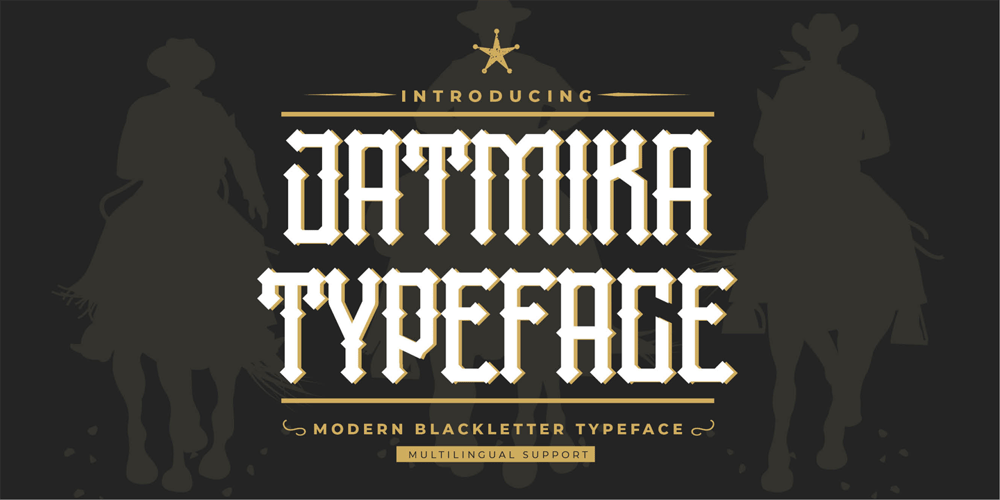
Jatmika Typeface
Jatmika Typeface font
Jatmika Typeface Font Family was designed by Abdul Malik Wisnu, Anang Fibriyanto and published by Gassstype. Jatmika Typeface contains 1 styles and family package options. Introducing our latest display typeface called Jatmika Typeface- Modern Blackletter Typeface – Display Vintage Serif can make your logotype become more interesting. Best Vintage font multilingual support. inspired by the decorative arts and architecture movementJatmika Typeface fonts is perfect for your project and allows you to create designs, headlines, posters, logos, badges, and many more that are beautiful. It is also best used for posts, logos, posters, certificates, labels and more.